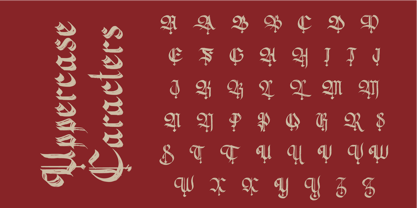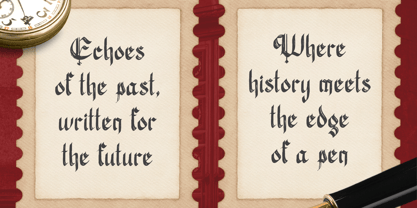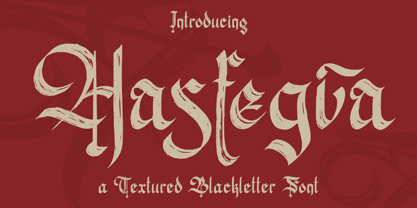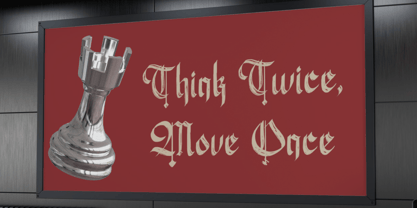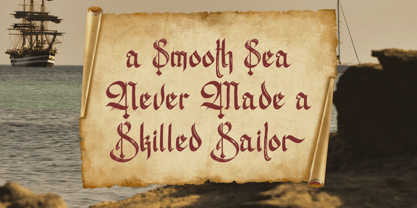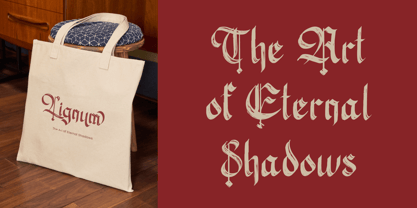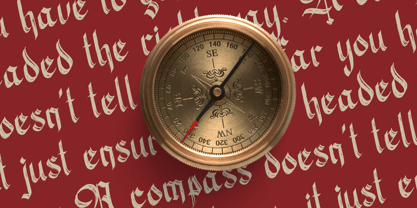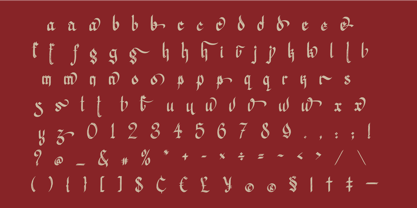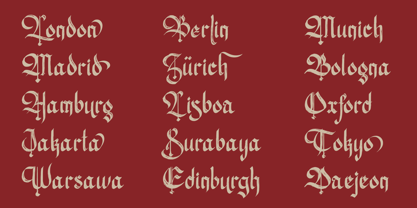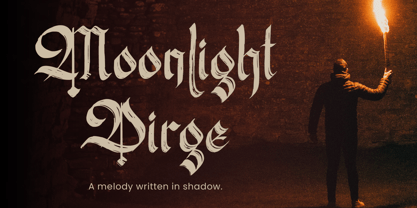
Hasfegia
The Hasfegia Font Family was designed by Randi Irvan and published by Rvandtype. Hasfegia contains 1 styles. More about this family
Hasfegia is a masterpiece of dark aesthetics, blending the timeless elegance of classic Gothic calligraphy with a raw, organic hand-drawn texture. Each character is meticulously crafted with sharp, aggressive strokes balanced by dynamic curves, creating a visual identity that is both majestic and mysterious. The integrated distressed effect adds a high-end artisan depth to your typography, saving you the time of manual weathering while maintaining a professional, premium look.